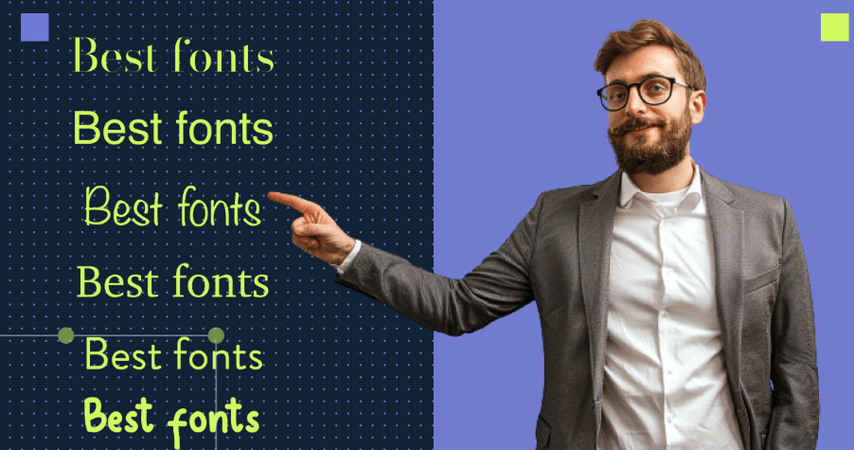
Best Fonts for Websites: Popular Web Fonts for Modern Design
Selecting the right fonts determines how visitors will experience your site. Clear typography will make the content easier to read, set your brand tone, and keep users scrolling longer.
Great text choices help you build professional websites in a few moments when you pair them with modern AI design tools and high-quality graphics. This post talks about the best fonts for websites in 2026.
Part 1: What Makes a Good Font for Websites?
Not every pretty font works well on a screen. Finding good fonts for websites requires balancing aesthetic appeal with practical web performance.
1. Readability and User Experience
Screen legibility comes first. A strong web font features clear letter shapes, balanced character spacing, and comfortable height proportions. Readers should scan your text naturally without straining, whether viewing on a desktop monitor or a small smartphone screen.
2. Brand Identity and Visual Style
Typography speaks before your words are read. Clean geometric sans-serifs communicate modern tech efficiency, while traditional serifs evoke trust and authority. Your font choices should align with your brand personality and set the right emotional tone.
3. Web Compatibility and Performance
Heavy font files slow down page load times, which harms your search rankings and drives visitors away. Ideal web typography relies on standard formats (such as WOFF2) that load quickly and render smoothly across all modern web browsers.
Part 2: Best Fonts for Websites in 2026
Here are the top-performing, reliable choices for modern web design this year:
Font NameFont StyleBest Use Cases
InterModern Sans-SerifSaaS dashboards, app interfaces, and heavy body text
RobotoGeometric Sans-SerifMobile apps, e-commerce stores, and high-density layouts
PoppinsFriendly GeometricStartups, creative agency headers, and landing page hero sections
MontserratBold Sans-SerifHigh-impact headings, call-to-action buttons, and banners
Playfair DisplayElegant SerifLuxury brands, fashion editorials, and lifestyle blogs
Open SansNeutral Sans-SerifCorporate websites, long-form blogs, and support documentation
Part 3: Best Font Combinations for Different Website Styles
Mixing fonts correctly creates visual structure. Combining a distinct header font with a clean body font guides the reader's eye naturally down the page.
1. SaaS & Tech Websites: Inter + Roboto
Inter handles clean, sharp headings while Roboto provides effortless legibility for complex UI screens and data-heavy pages.
2. Creative Agencies & Portfolios: Poppins + Montserrat
Poppins brings a warm, friendly vibe to main titles, while Montserrat adds structured weight for secondary headings and highlights.
3. Luxury & High-End Brands: Playfair Display + Open Sans
Playfair Display brings traditional elegance to major headlines, while Open Sans keeps body paragraphs modern, crisp, and simple to read.
Typography extends far beyond the structural body text of a website. Professional web designers rely heavily on eye-catching visual typography for hero banners, product launch images, digital marketing graphics, and social media promotions. Integrating visual text into background imagery creates immediate focal points.